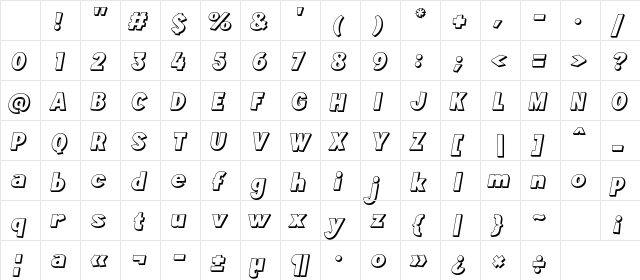
Complete Komyca 3D free version Italic glyph index. Displaying only characters natively supported by Komyca 3D free version Italic font.
Komyca 3D free version is a composed and adaptable typeface that performs quietly and consistently across a wide range of design contexts. The slanted form adds forward momentum and visual energy.
Pro Tip: Use Komyca 3D free version for emphasis, pull quotes, and subheadings where its slanted energy can add rhythm to the layout.